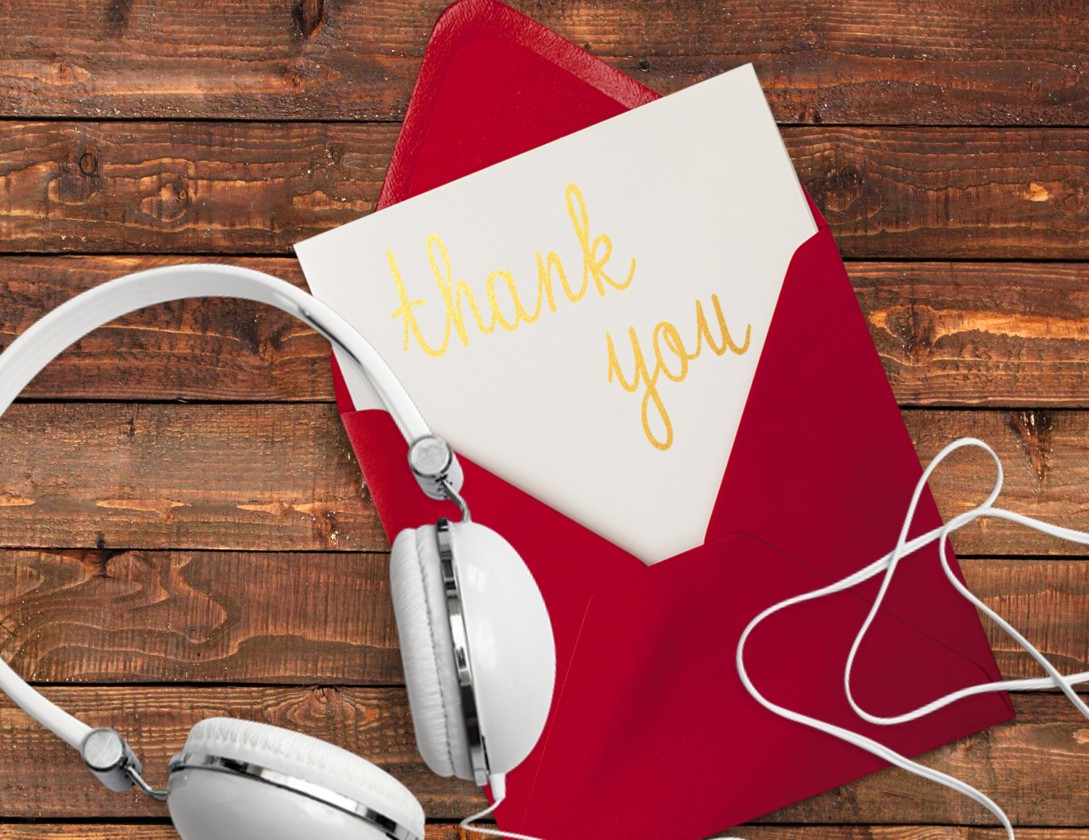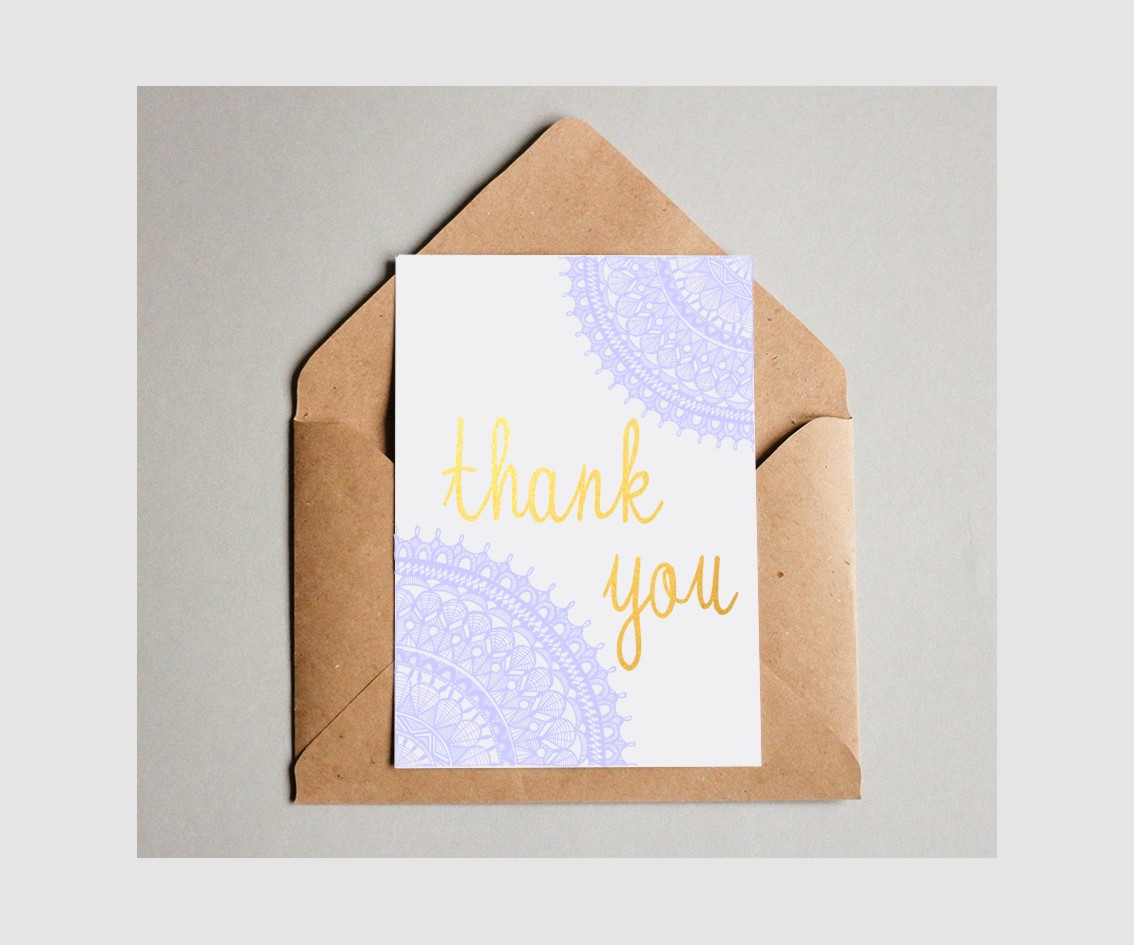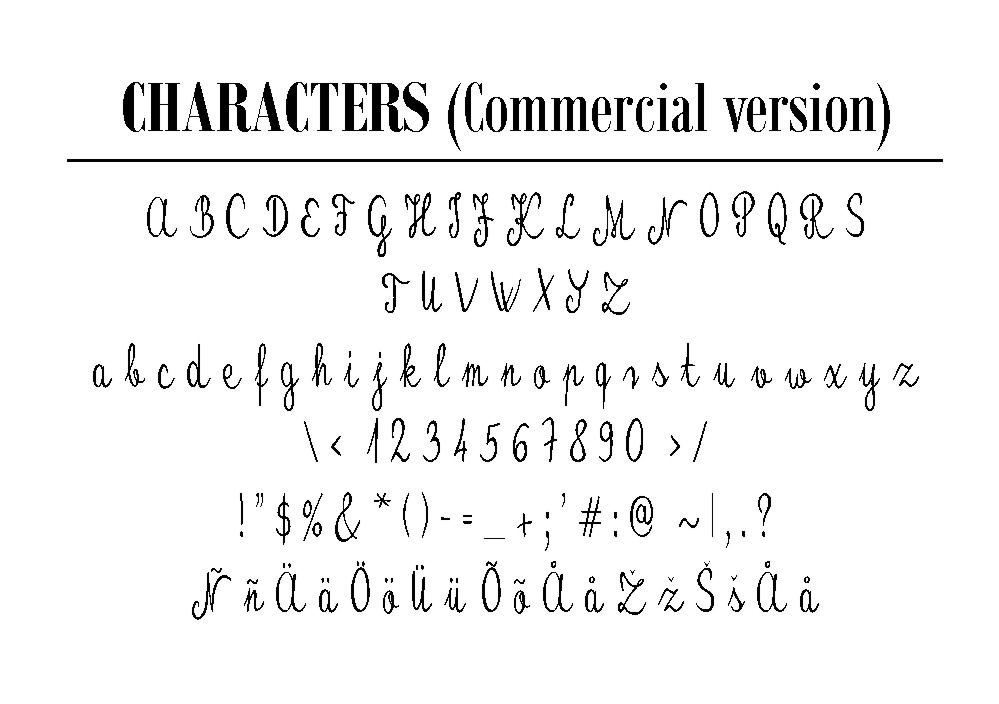
HomeScript FontsKristaly Font Script Fonts Kristaly Font FacebookXPinterestWhatsApp Kristaly Font Poster 2 Kristaly Font Poster 3 About Kristaly Font Kristaly, a neat handwritten font created by Eva Barabasne Olasz. DOWNLOAD ON CREATIVE FABRICAThis font is sold and delivered by Creative Fabrica. Font Canyon may earn a commission if you buy through this link. People also explored Samerville Font Monogram Love Shadow Font Syberian Font Copacetic Spring Font Eat and Drink Wander Full Adelisa Font Sticky Candy Duo Font Happy Day Font 285 0 TagsKristaly Font Previous articleErnst FontNext articleCoalpen Font LEAVE A REPLY Cancel reply Comment: Please enter your comment! Name:* Please enter your name here Email:* You have entered an incorrect email address! Please enter your email address here Website: Save my name, email, and website in this browser for the next time I comment. Personal Use Free Barbatrick Personal Use Free Read more about this font Ennobled Pet Personal Use Free Read more about this font Frizton Personal Use Free Read more about this font Beat My Guest Personal Use Free Read more about this font BLOG Modern Sans-Serif Fonts That Brands Love in 2025 In 2025, modern sans-serif fonts remain a top choice for brands looking to project clarity, professionalism, and... Best Fonts for T-Shirt Design – Top 2025 Picks Top 10 Handwritten Fonts That Elevate Your Designs Where to Buy American Fonts Online in 2024